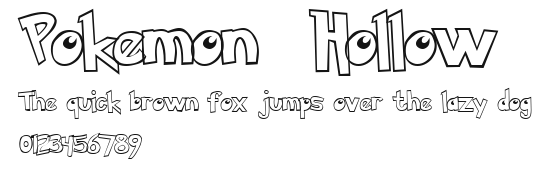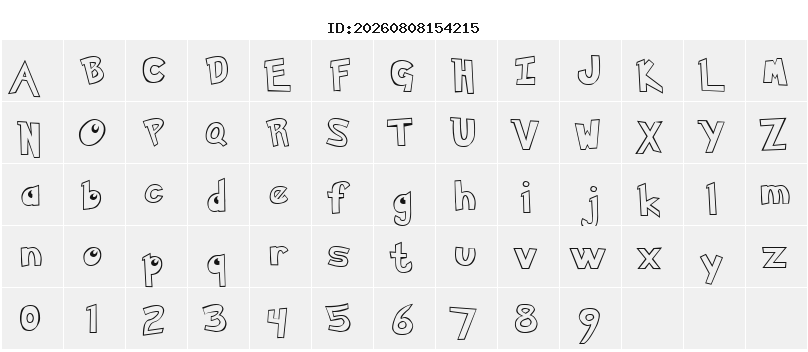
• Font Name: Pokemon Hollow
• Font Style: Hollow
• Font ID: Altsys Metamorphosis:Pokemon Hollow
• Full Font Name: Pokemon Hollow
• Version: Altsys Metamorphosis:29.09.1999
• PostScript Name: Pokemon Hollow
• Character Count: 187
• Copyright: Generated by Fontographer 4.0.4
About Pokemon Hollow.ttf
Pokemon Hollow.ttf is a modern, elegant sans-serif font designed for ultimate readability and visual harmony. Perfect for branding, headlines, web design, and print materials.